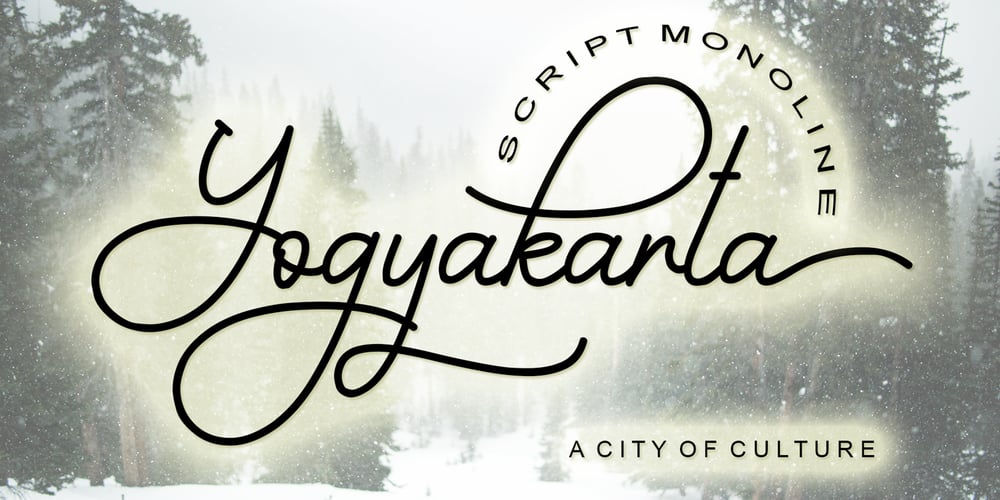
Yogyakarta
Yogyakarta font
Yogyakarta Font Family was designed by Ahmad Afandi and published by Letterafandi Studio. Yogyakarta contains 1 styles and family package options. Yogyakarta is a handwritten script font, with an elegant and beautiful look. It looks stunning on invitations, thank you cards, quotes, greeting cards, logos, business cards and every other design which needs a handwritten touch.